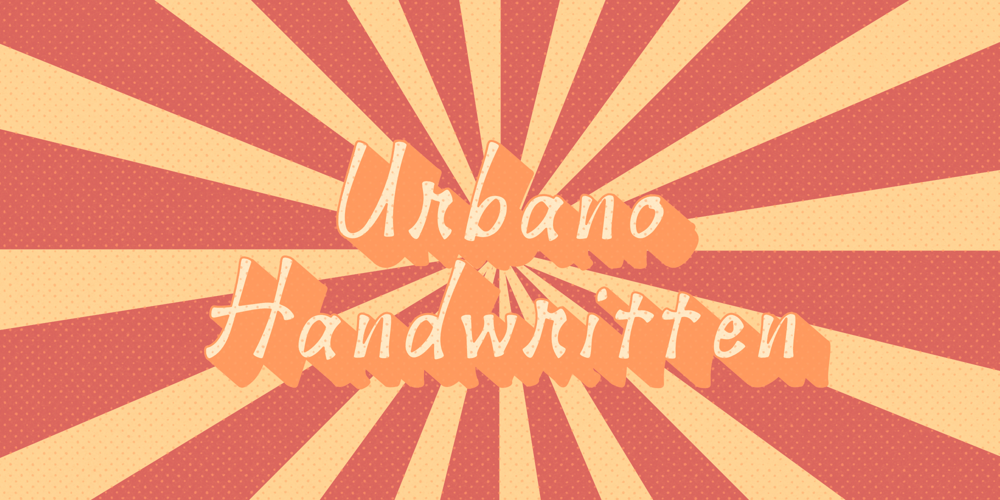
Urbano Handwritten
Urbano Handwritten font
Urbano Handwritten Font Family was designed by Abdul Hayyi Mustofa and published by HayyType Foundry. Urbano Handwritten contains 1 styles and family package options. Introducing: Urbano Handwritten! A fancy handwritten font with a urban style. With strong strokes and ae extraordinary style, Urbano Handwritten is perfect for branding projects, daily text, product packaging – or simple style for your photography text.